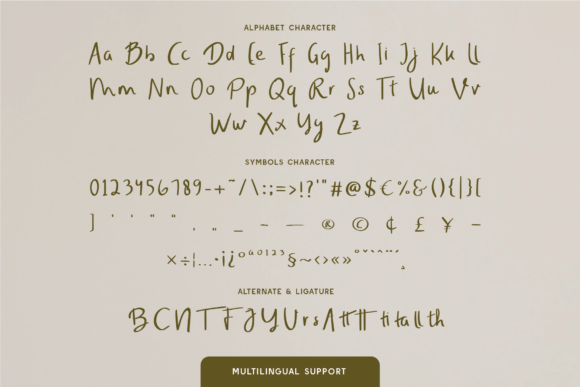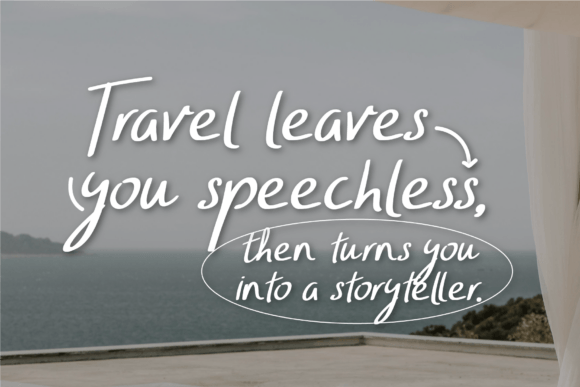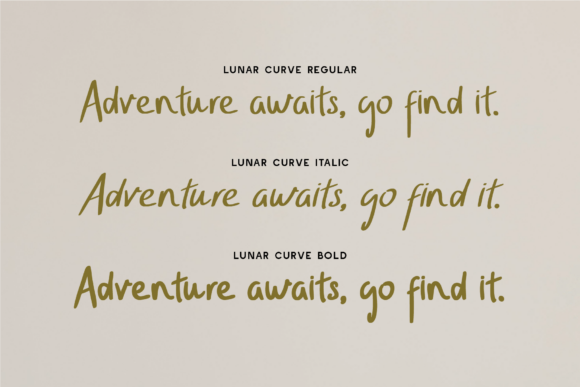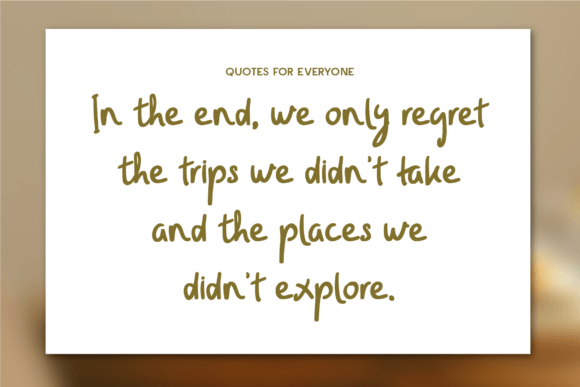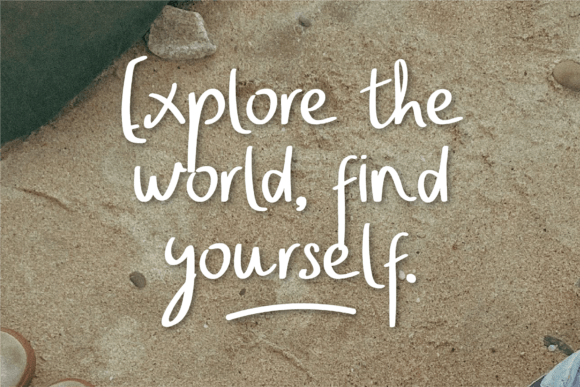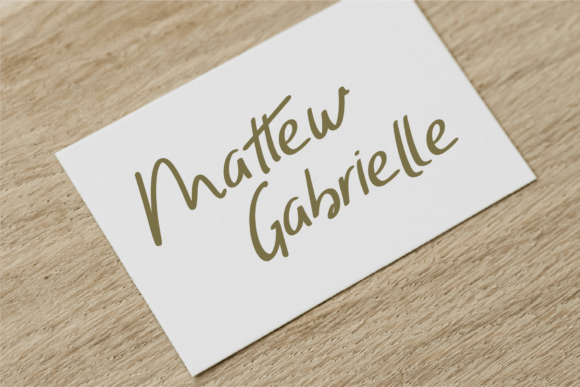
Introduction to Lunar Curve Font
Lunar Curve is a graceful handwritten font that brings together elegance and fluidity.
Its gently curving strokes and smooth flow create a natural rhythm, offering a touch of casual beauty Ideal for sophisticated design projects, Lunar Curve delivers an effortlessly refined look, while its subtle charm adds warmth to any creative work.